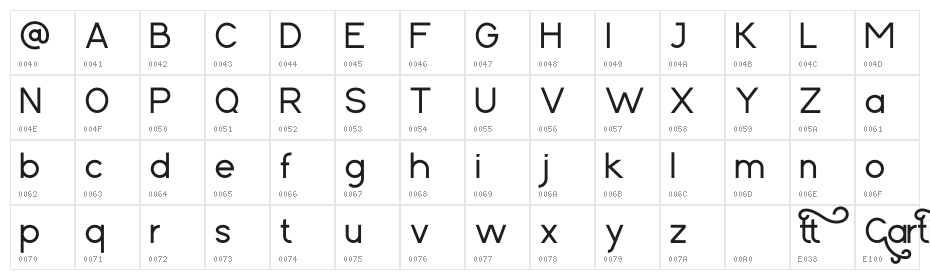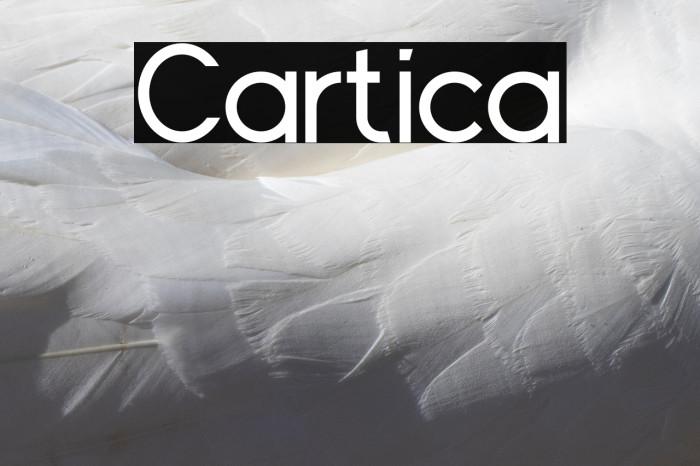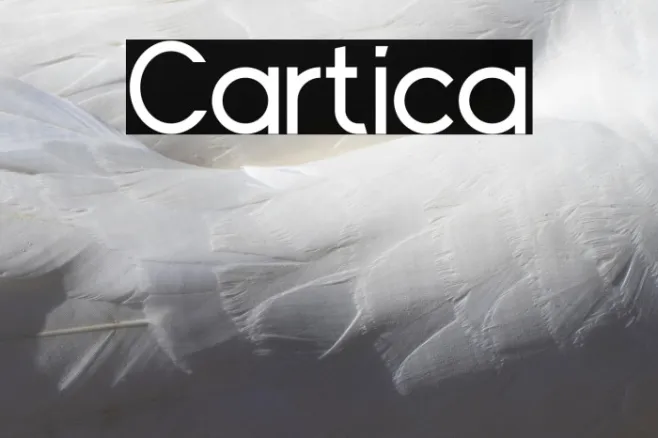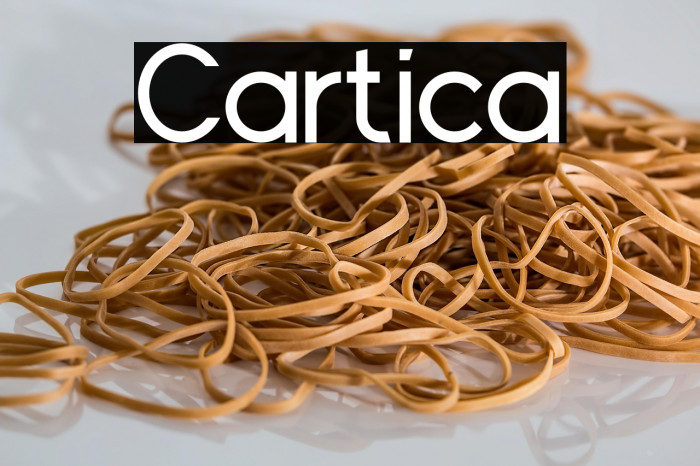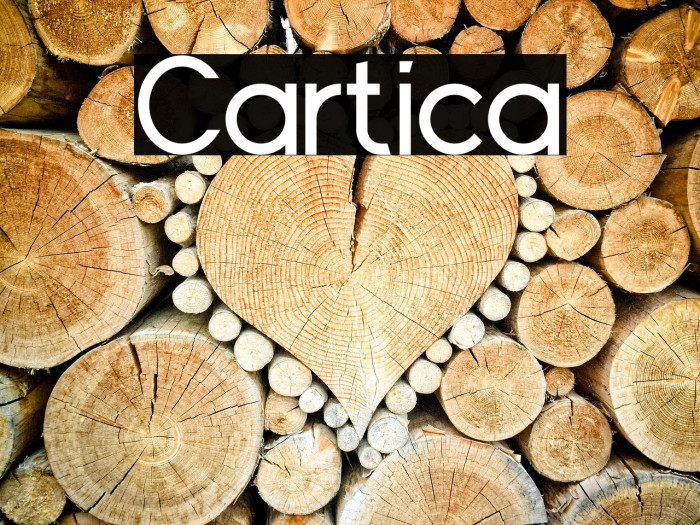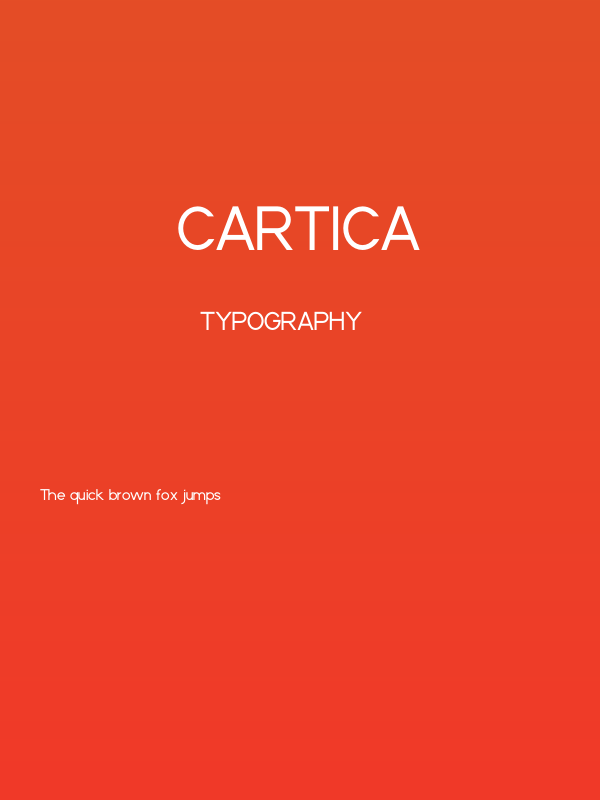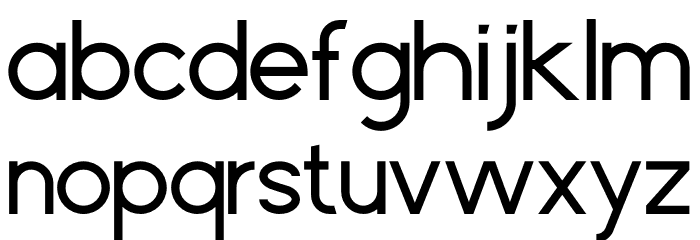
Cartica Font
Cartica Description
This font features a clean and modern sans-serif design with uniform stroke widths and a geometric structure. The characters are well-balanced, offering a harmonious appearance that is both professional and approachable. The uppercase letters are bold and commanding, while the lowercase letters maintain a friendly and inviting look. The numerals are clear and easily readable, making them suitable for various applications. The special characters are consistent with the overall style, ensuring a cohesive visual experience.
| Proposed Projects | Ideal for branding, corporate materials, web design, and editorial layouts where clarity and modernity are desired. |